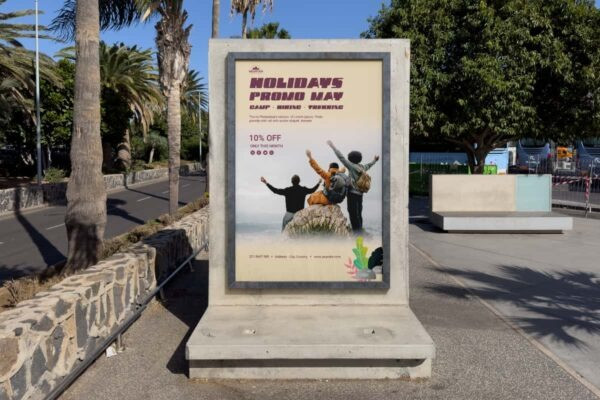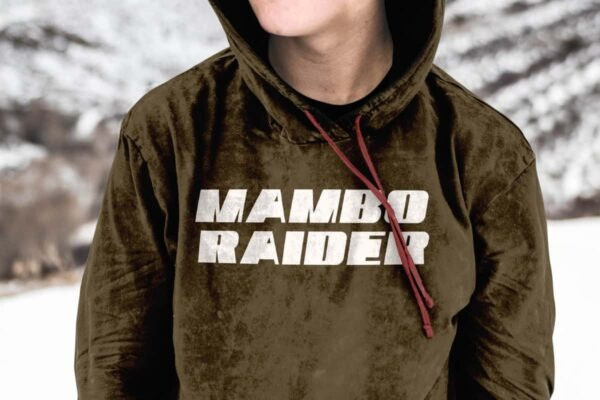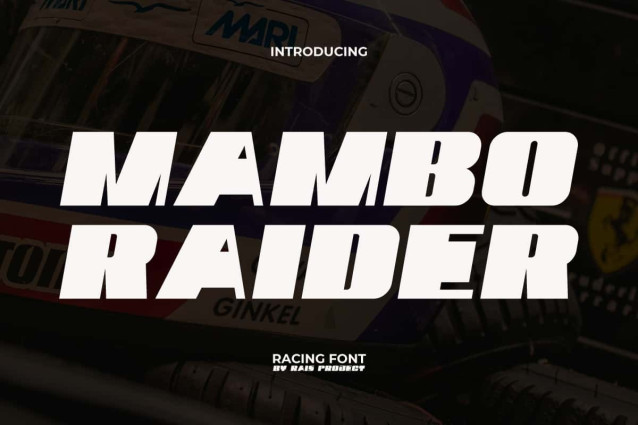
Mambo Raider Font
Mambo Raider Font is a bold racing font to make your designs standout. The style of this font is suitable for main text in a design because it stands out and is easy to read. It will be great for custom design, poster, label, signage, stationery, product packaging, quotes, brand image, advertisement, invitation, marketing material, website page, and more!
Mambo Raider Font includes a full set of ALL CAPS for Uppercase and Lowercase Letters, Numerals, and large range of Punctuation. This cool font will be suitable for various industries, such as sports, automotive, fashion, game, barber shop, cafe, event or festival, photography, printing, publishing, etc.